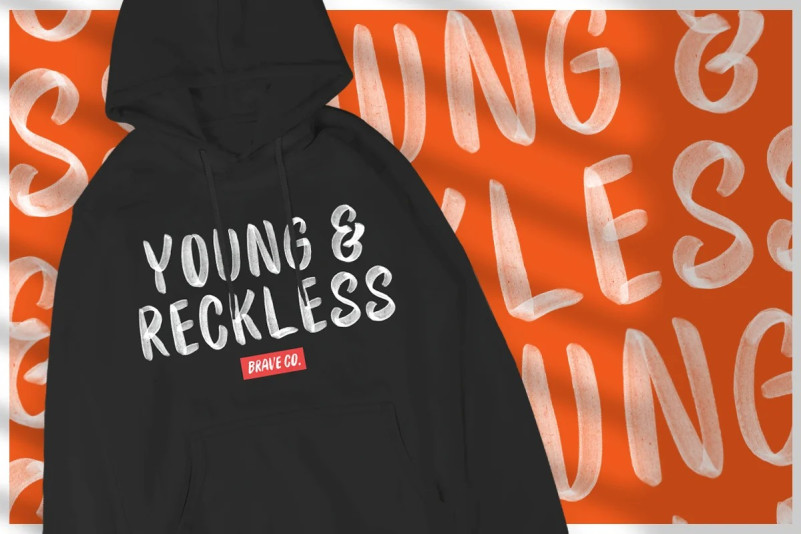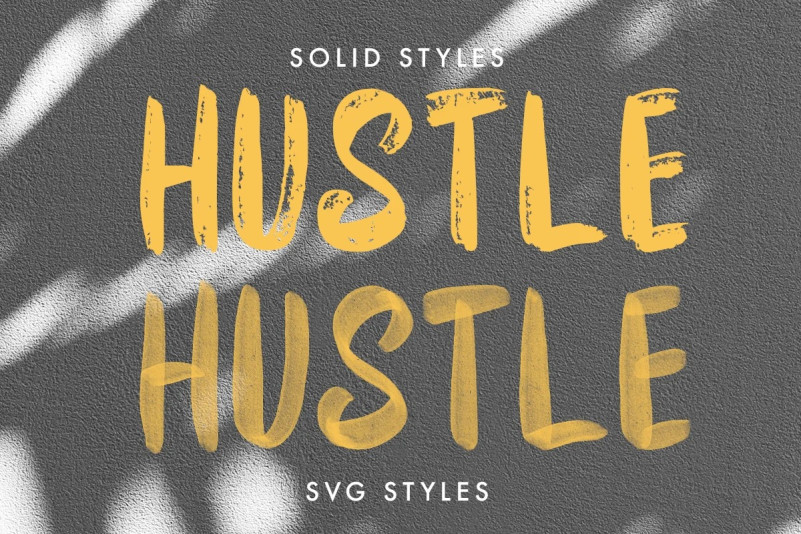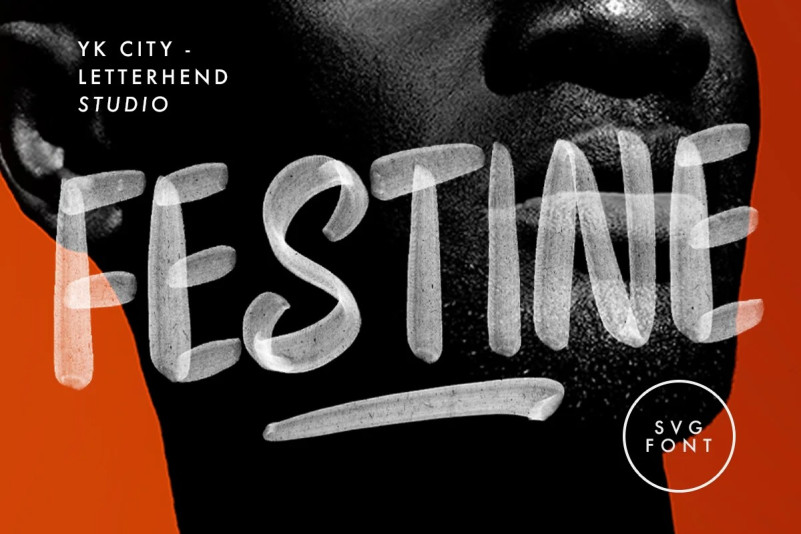
Festine Font
Festine Brush Font is a textured SVG brush typeface. Available in two types, solid version and textured transparent version. This type of font perfectly made to be applied especially in headlines which is need a standout font, and the other various formal forms such as invitations, labels, logos, magazines, books, greeting / wedding cards, packaging, fashion, make up, stationery, novels, labels or any type of advertising purpose.